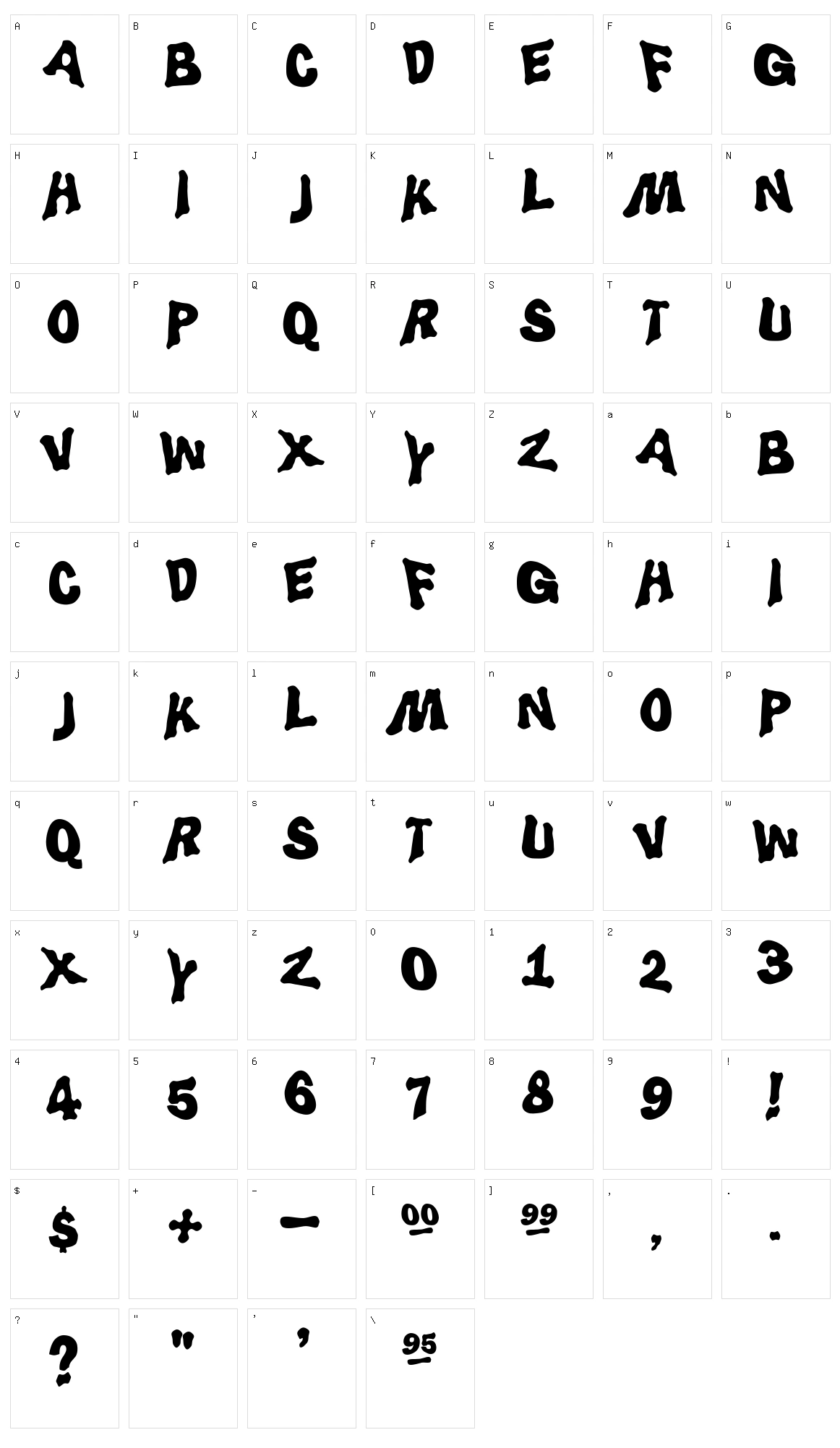
LuggerBug
LuggerBug - The lowdown:
This version of LuggerBug is 18 (days) old, It's come of age. Which means it can drink in pubs, vote and watch adult videos. These are, of course, three things which should not be attempted in one day. However, I did just that and following an afternoon shuffling between the pub and the video store, I ended up voting for . . . Alicia Silverstone
LuggerBug - whats included
Uppercase & Lowercase are the same, numerals and some punctuation. The characters [ ] \ have the numbers 99, 95 and 00 on them for better displaying of prices like £24.99 etc.
LuggerBug ?!
I was originaly going to call it BuggerLugs, but I though that might be a bit stupid. You may or may not know what 'Buggerlugs' means, well in Scotland it's a semi-effectionate term to describe someone you know quite well, but at the same time, slag them off without any guilt being attached.